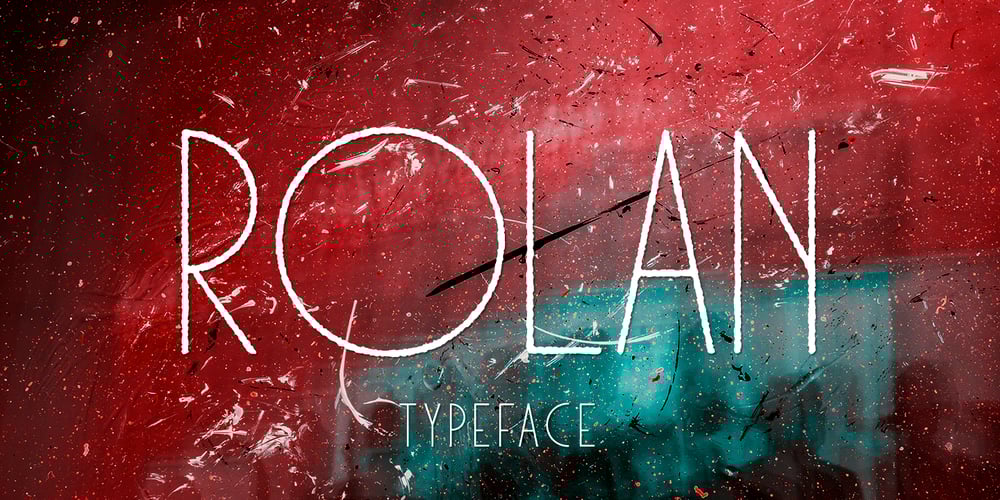
Rolan Font Family was designed by Pavel Larin and published by Larin Type Co. Rolan contains 6 styles and family package options. Rolan This is a light elongated font that includes light, regular and bold weights, as well as these weights in a rough style. It is versatile and will perfectly fit into any project in both modern and vintage style, it is perfect for creating a logo, banners, flyers, labels, branding and much more This font family has only Capital letters and some of them are different.